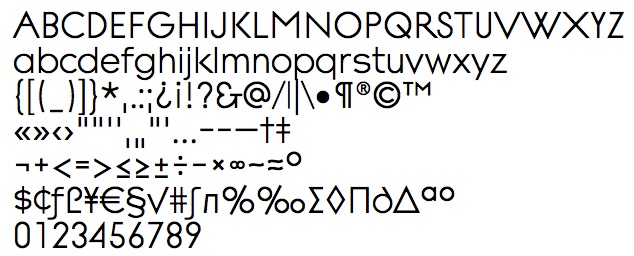
Noir Text Font
Noir Text Font is perfect for mystery novel publishing, crime drama productions, detective agency branding, film noir poster designs, thriller book covers, dark fiction magazines, vintage detective comics, noir-themed restaurants, speakeasy bar menus, and atmospheric entertainment venues. This distinctive typeface excels in applications where dramatic atmosphere, vintage sophistication, and mysterious character are fundamental design elements.
Noir Text Font is exciting because it masterfully captures the shadowy elegance and dramatic tension of classic film noir through its sophisticated letterforms and atmospheric character details. Its carefully crafted construction features the distinctive contrast and refined edges that evoke the golden age of detective fiction and cinematic mystery, with subtle details that create visual intrigue while maintaining exceptional readability. The font's moody personality delivers authentic noir atmosphere while ensuring professional performance across various media applications.
The Noir Text Font family includes Regular, Bold, Italic, Bold Italic, Display, and Shadow variations, each capturing different aspects of noir aesthetic and dramatic storytelling. The family features period-appropriate stylistic alternates, vintage ligatures, and atmospheric decorative elements that enhance the mysterious character. Specialized glyphs include film noir symbols, vintage punctuation, and dramatic flourishes that complement the main character set perfectly.
Professional designers appreciate Noir Text Font for its ability to convey mystery, sophisticated drama, and vintage atmosphere in entertainment and publishing applications. The font's commanding presence works exceptionally well in applications where emotional impact and atmospheric storytelling are paramount. Its distinctive personality makes it perfect for publishers and entertainment brands seeking to communicate intrigue, sophistication, and connection to classic mystery traditions.
The mysterious character of Noir Text Font transforms ordinary communications into compelling atmospheric experiences that capture the essence of classic detective fiction and film noir. Its authentic vintage appeal resonates with audiences seeking sophisticated entertainment while maintaining professional typography standards for contemporary publishing and media applications.
Enter the shadows with Noir Text Font and discover why mystery publishers, entertainment producers, and atmospheric venues choose this exceptional typeface for their most intriguing and dramatically compelling design communications.